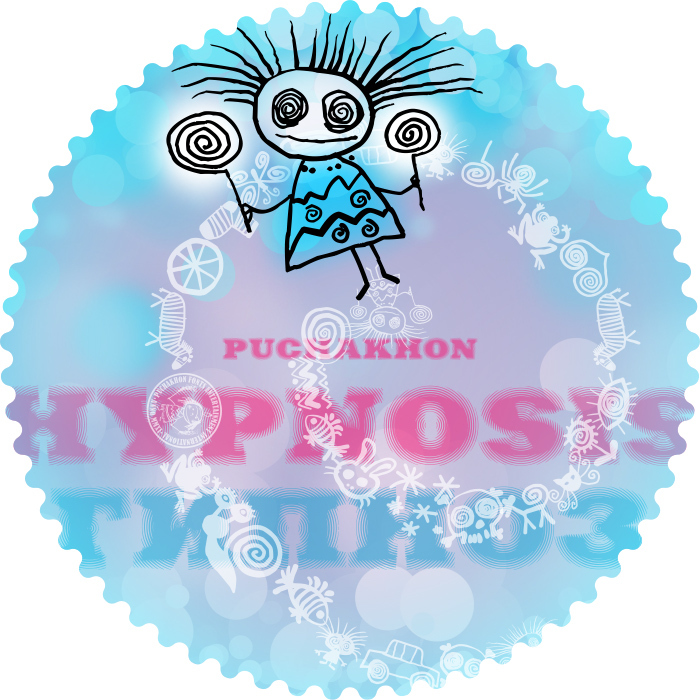
Puchakhon HYPNOSIS
Meet the new Latin/Cyrillic font "Puchakhon Hypnosis"! While all the letters are CAPS the lower case has a bonus - funny pictures that Puchakhon dreamed under hypnosis.